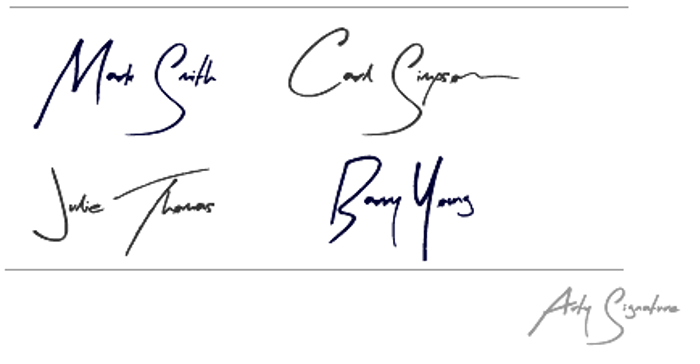
Arty Signature Font
There never seems to be a decent solution to making a signature with any of the pre-installed fonts.
It’s tempting to use one of the pre-installed fonts available in a hand-written script, but it’s a bit of a cliché, and actually ineffective, as they never look ‘natural’.
This is a 'creative' signature typeface, I may produce another, more 'formal' version.
There are 4 different capital ‘J’ versions – one under ‘J’, one under ‘/’, another under ‘\’ and a third under ‘@’.
To suit some signatures, there’s a trailing scribble under the = character (see this in place of the 'n' in the Simpson example above), and a bigger underline under the _ too!